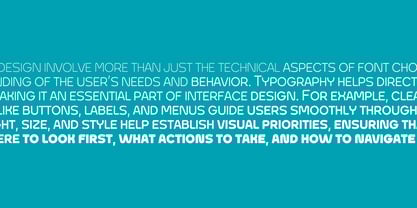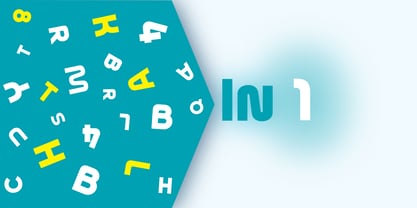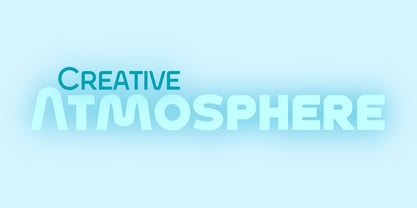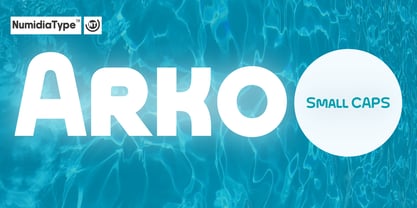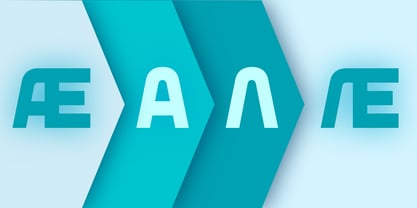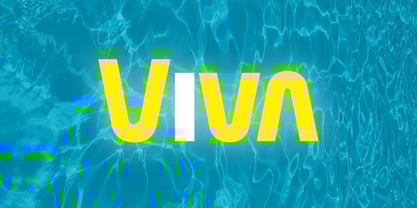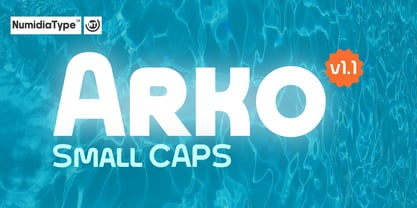
Arko Small CAPS
by NumidiaType
The Arko Small CAPS Font Family was designed by Yassine Abdi and published by NumidiaType. Arko Small CAPS contains 14 styles and family package options. More about this family
Arko™ Small CAPS is a versatile and modern sans serif font family designed to elevate your brand's identity with its sleek, curvy, and aesthetic appeal. Perfectly suited for contemporary design needs, Arko Small CAPS offers a sophisticated collection of 7 weights and 14 styles, including italic, to provide a dynamic range for any creative project. This font family stands out with its Small CAPS design, offering a unique alternative to traditional uppercase text. It is equipped with OpenType features, including a selection of alternative characters, to enhance typographic flexibility and customization. Whether you're crafting a bold logotype, designing striking web headings, or establishing a memorable brand identity, Arko Small CAPS is the ideal choice for designers who seek modern, high quality typography. Arko Small CAPS is optimized for both digital and print applications, making it a valuable asset for web designers, branding professionals, and industries looking to make a lasting impression. With its clean lines and stylish curves, it’s a perfect fit for a wide range of projects, from websites to logos and corporate materials. Last update: 1.1
Designers: Yassine Abdi
Foundry: NumidiaType
Arko Small CAPS